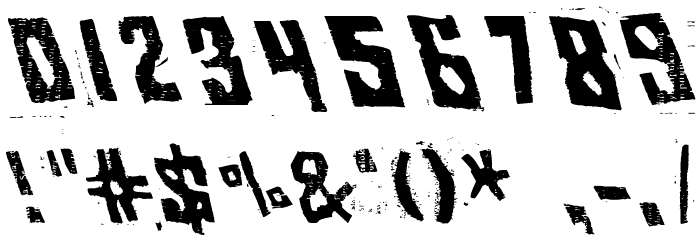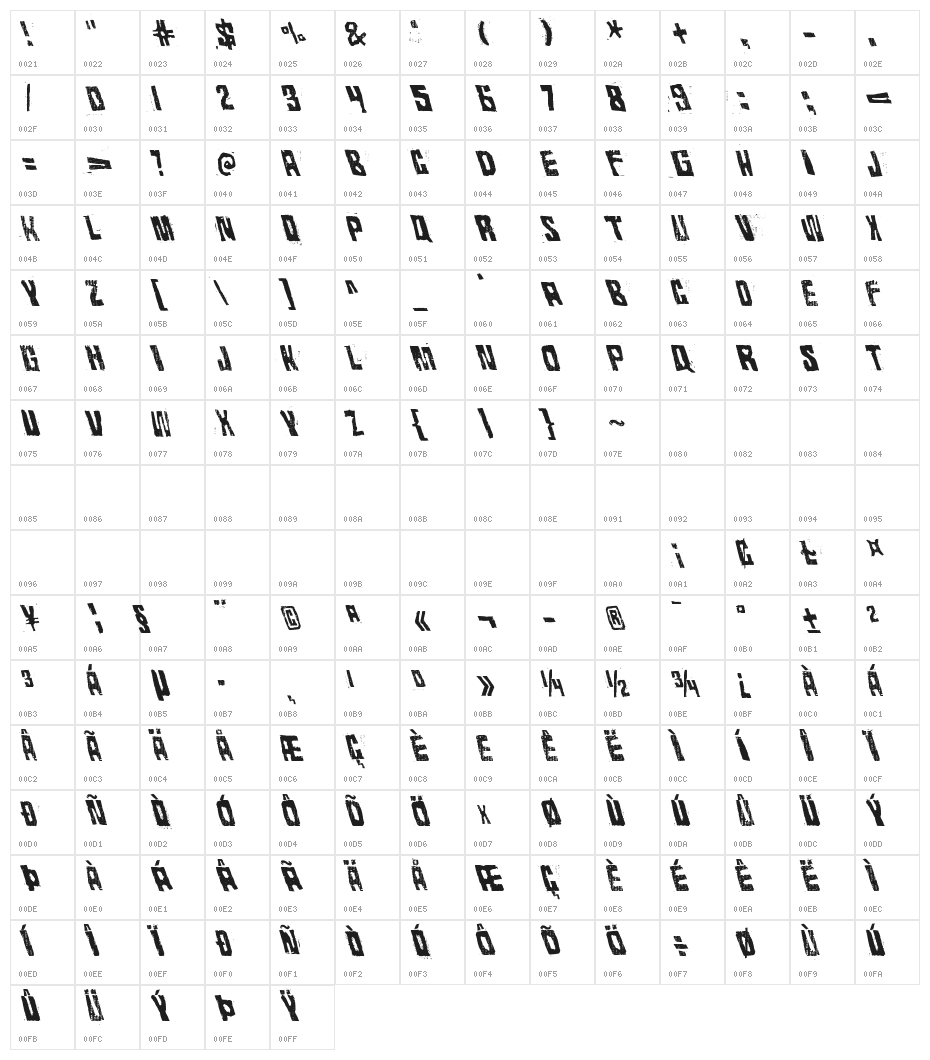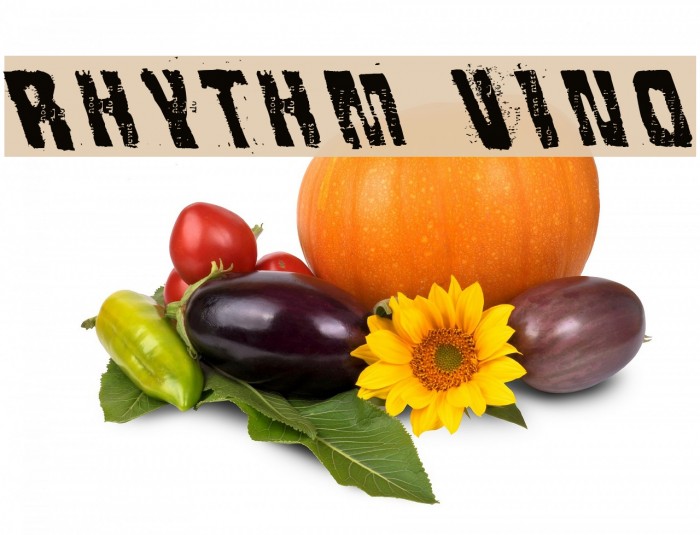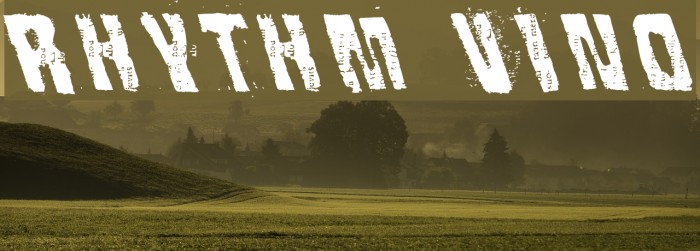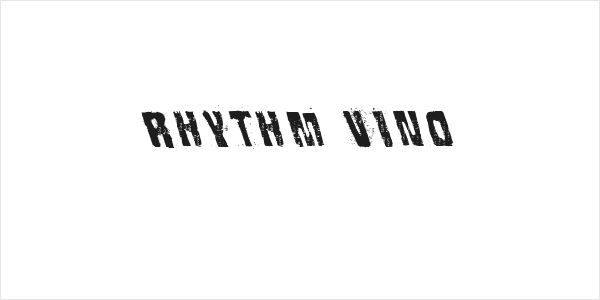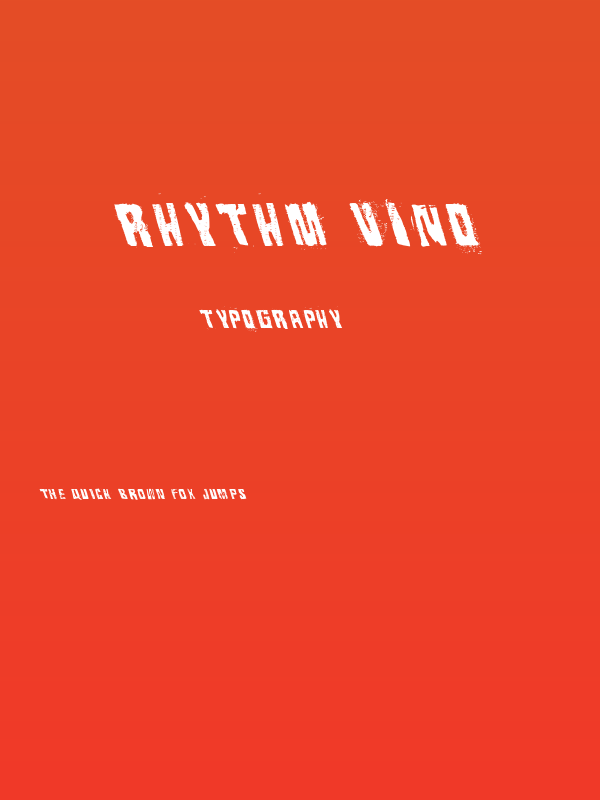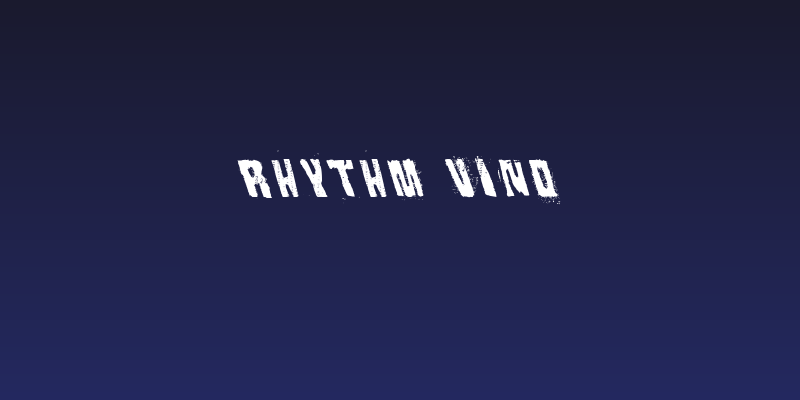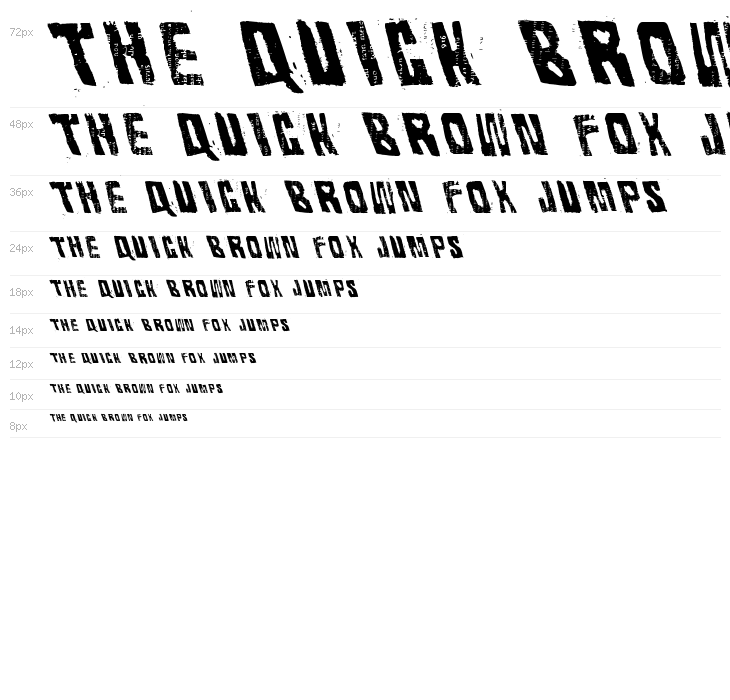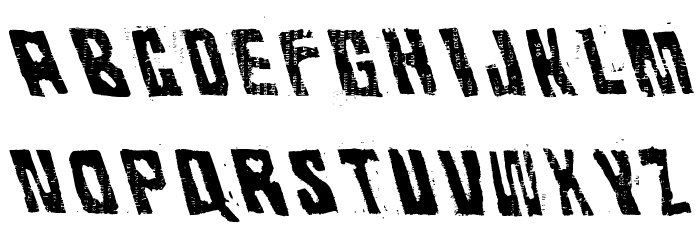
Rhythm Vino Font
Rhythm Vino Description
This font features a bold and distressed style, reminiscent of vintage printing techniques. The characters are heavily textured, giving them a rugged and worn appearance. Each letter and number appears as if it has been stamped or printed with a rough, uneven ink application, adding to its rustic charm. The uppercase and lowercase letters maintain a consistent width, while the numbers and special characters follow the same distressed aesthetic. This font's unique style makes it stand out, perfect for projects that require a touch of nostalgia or an edgy, handcrafted look.
| Proposed Projects | Ideal for posters, album covers, branding for rustic or vintage-themed products, and any design needing a bold, textured look. |